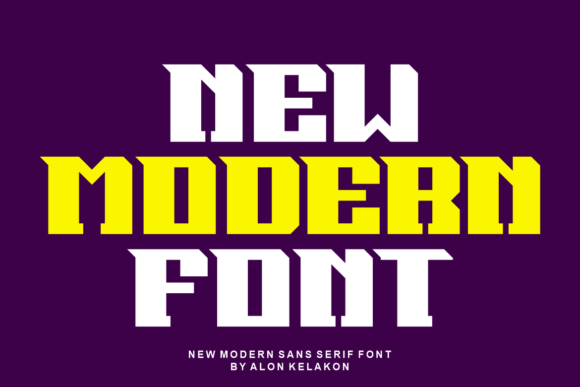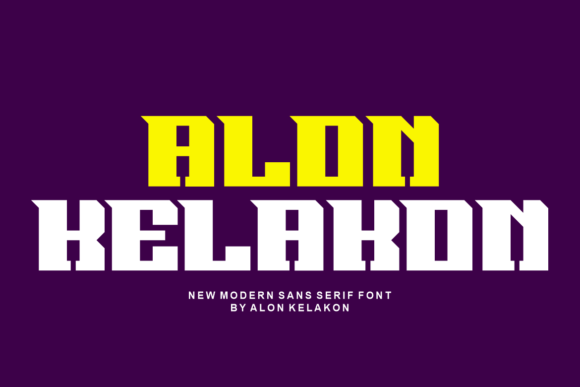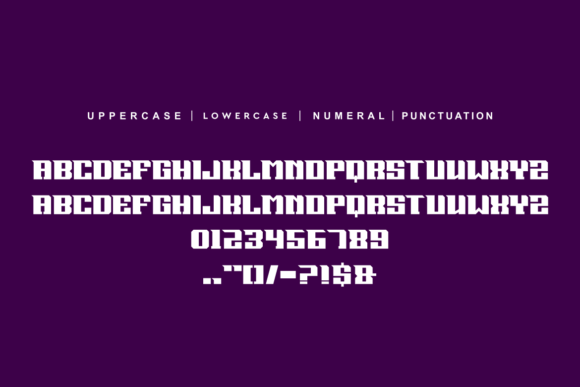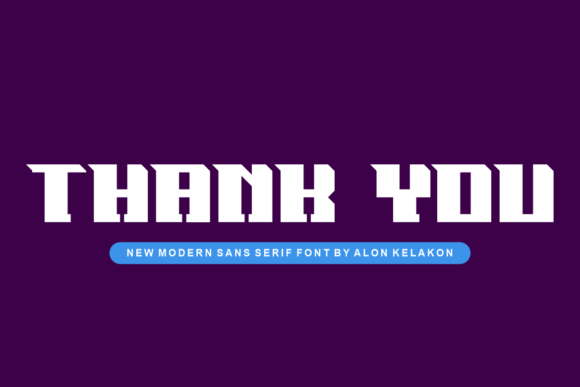
Snake Dragon Font – Free Download
Introduction to Snake Dragon Font
Snake Dragon is a modern and cool display font.
Key Features of Snake Dragon Font
Why Choose Snake Dragon Font?